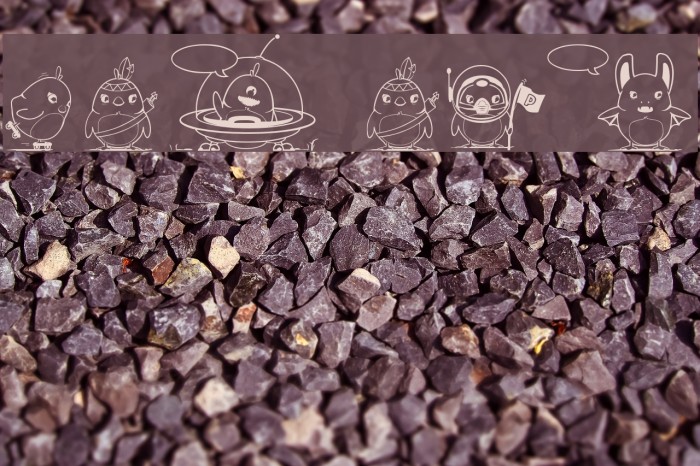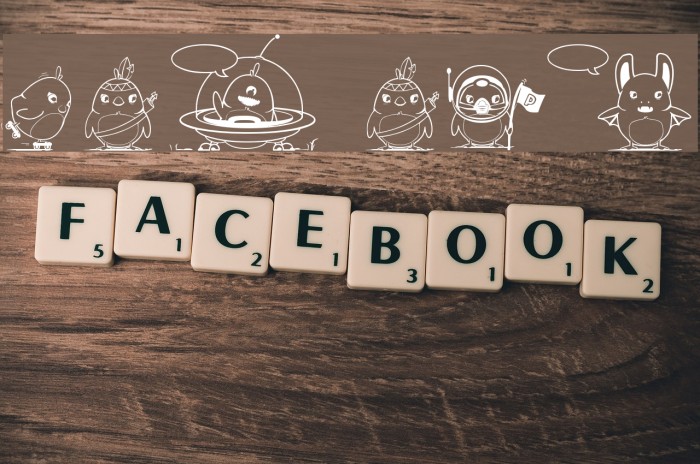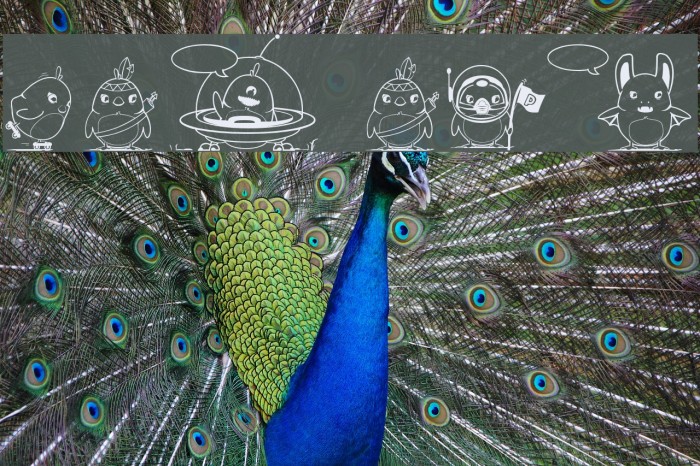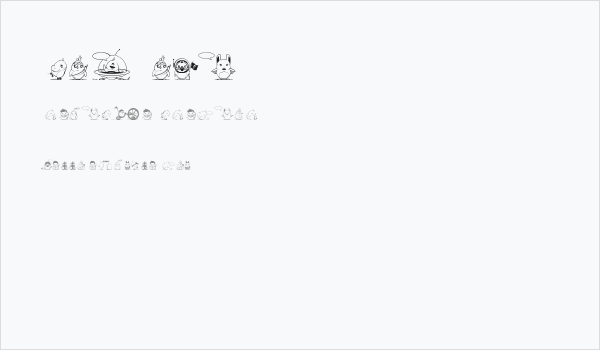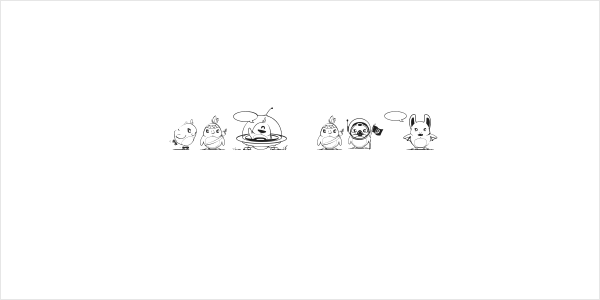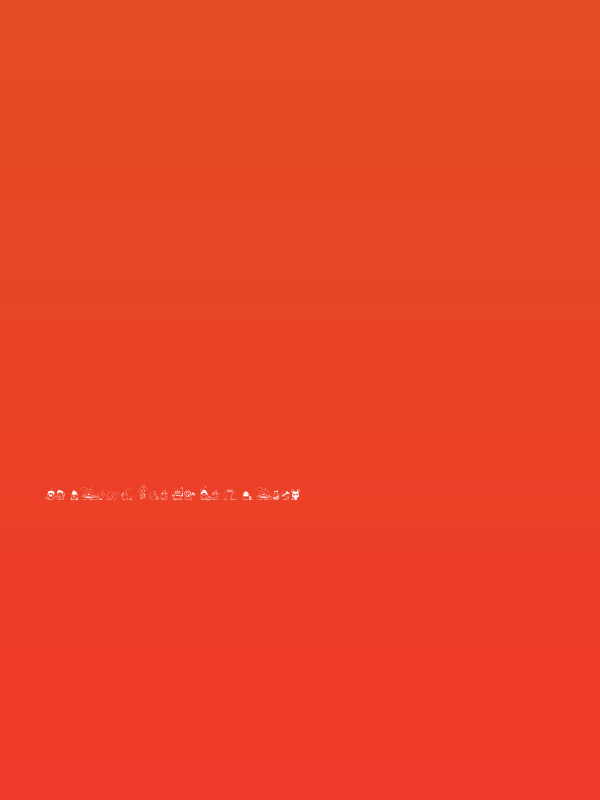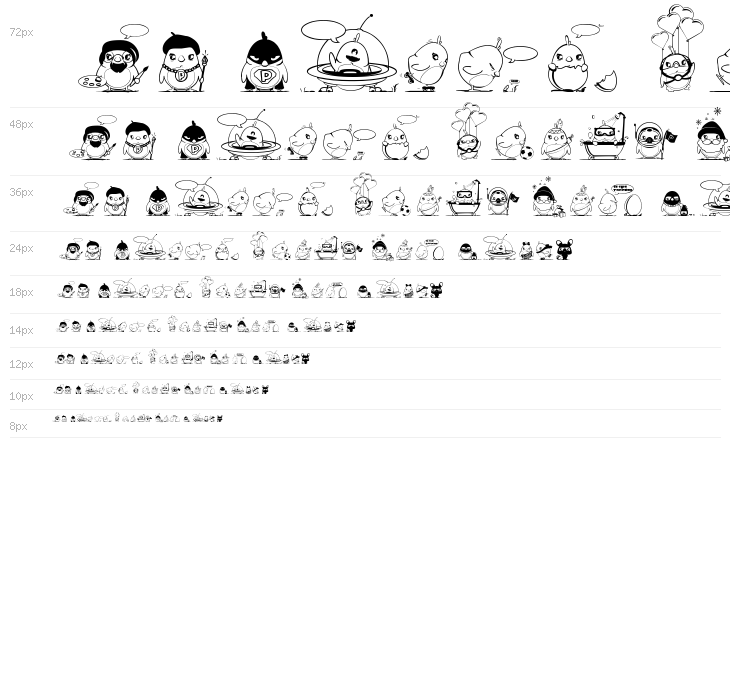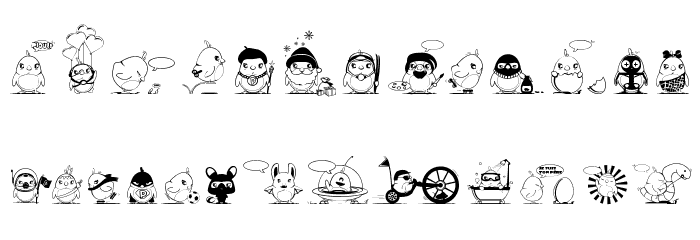
Piou Font Font
Piou Font Description
A playful, hand-drawn decorative font featuring whimsical cartoon bird characters, each with unique costumes, props, and expressions, replacing standard alphanumeric and symbol characters.
| Overall Style | Playful, Whimsical, Decorative |
| Use Case | Logos, Posters, Children's materials, Decorative headings |
| Proposed Projects | Children's books, greeting cards, playful branding, educational materials, comics, party invitations. |